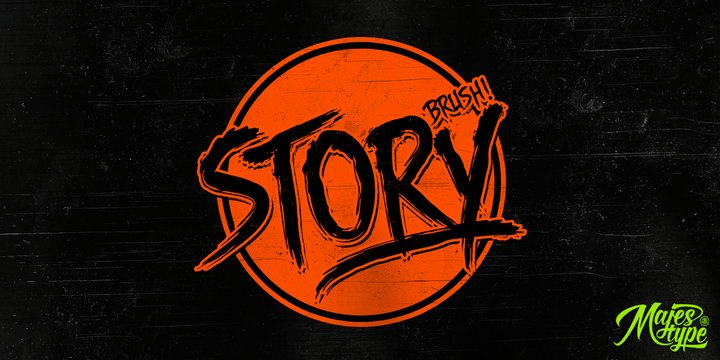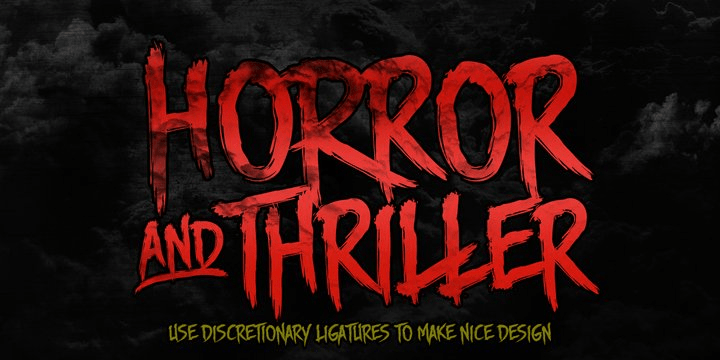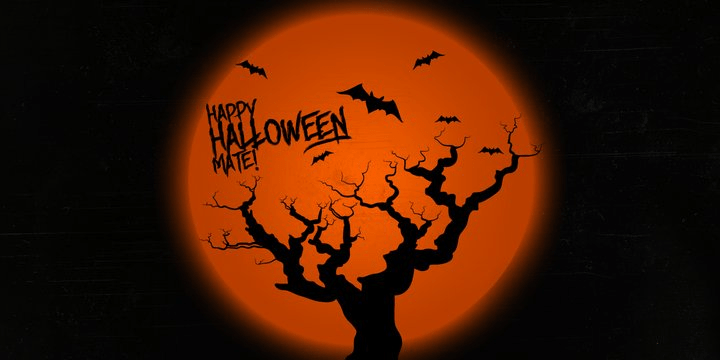
About Story Brush
Story Brush is the high detailed brush font that has over 240 glyphs. This font is equipped with OpenType feature to make custom feel for your design. The story brush typeface is designed for t-shirts design, logos, horror design, grunge & etc. Use discretionary…